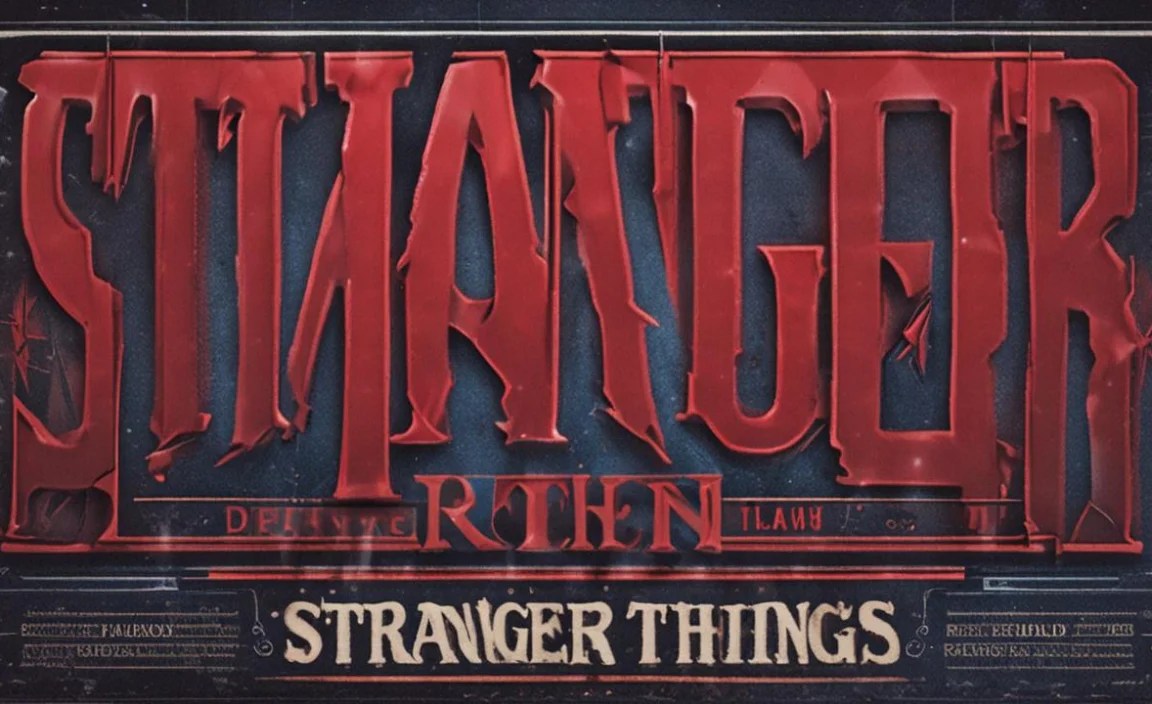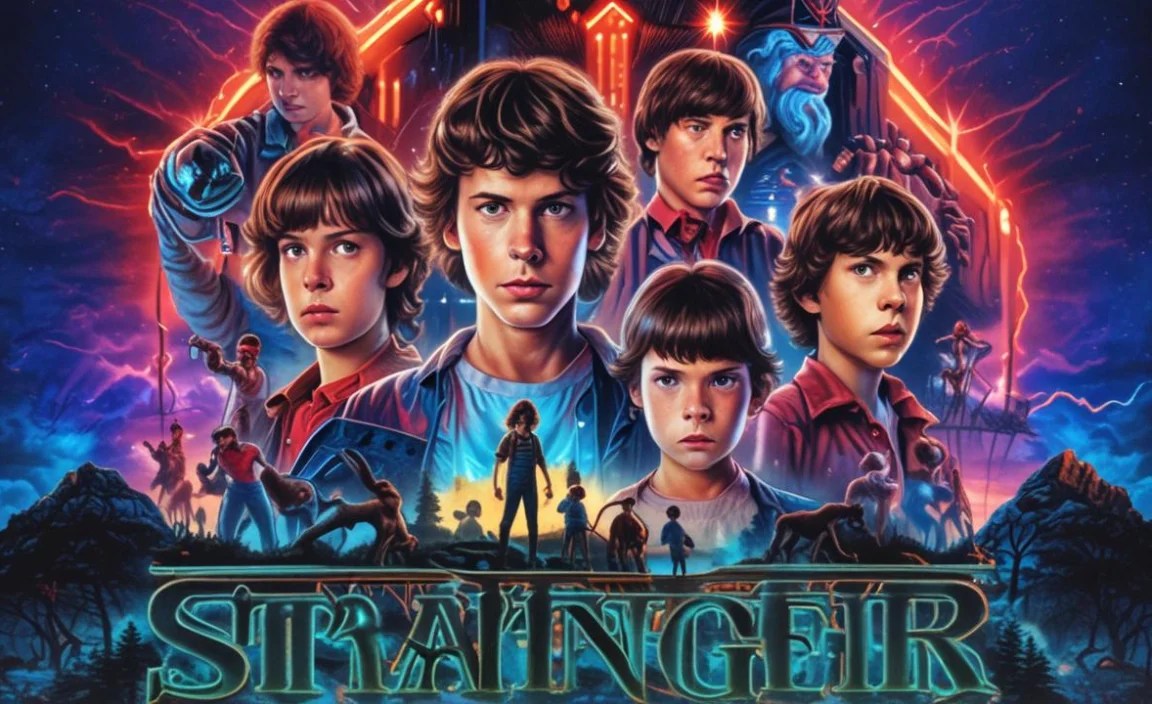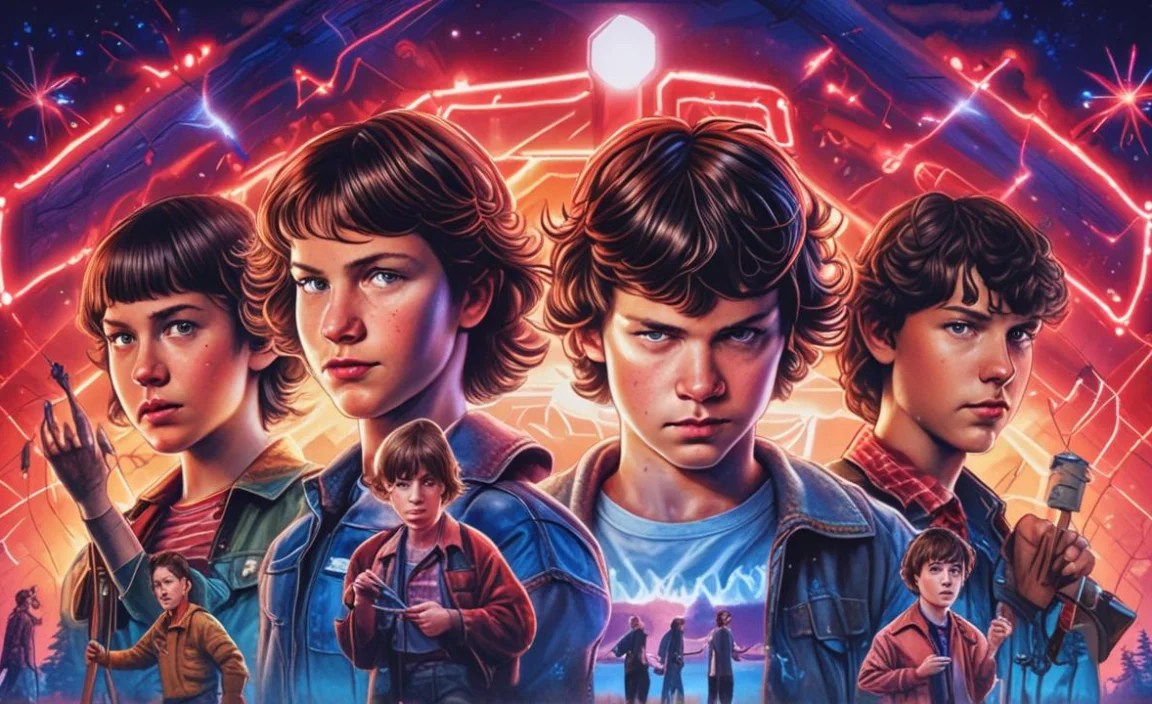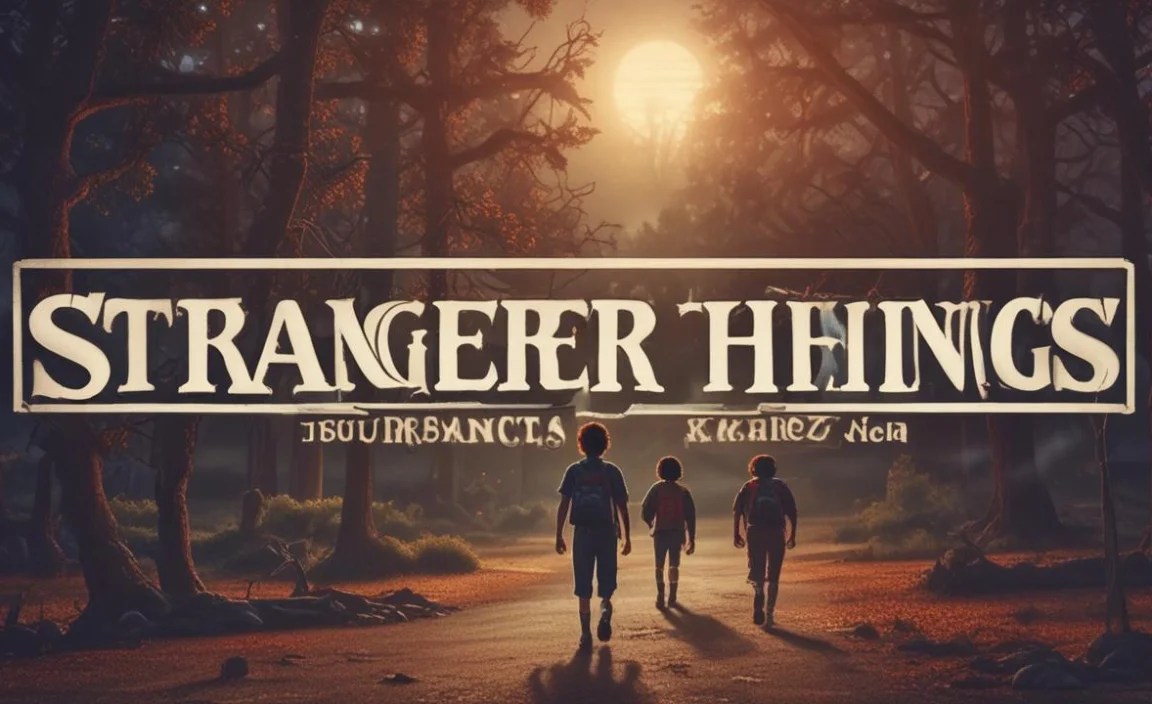
The Stranger Things font, used for the iconic title sequence of the hit series Stranger Things, is based on the ITC Benguiat Bold typeface, designed by Ed Benguiat in 1977.
This font is widely recognized for its retro, dramatic appearance, capturing the essence of the show’s 1980s setting and supernatural themes. The Stranger Things logo’s typography has become synonymous with the show’s identity, contributing to its nostalgic appeal and popularity.
Stranger Things Font Information
| Name | Stranger Things Font |
| Style | Bold |
| Designer | Ed Benguiat |
| Type | Serif, Display |
Stranger Things Font Family Includes
- Benguiat Bold
- Stranger Things Outlined
Where Stranger Things Font Is In Use
- Stranger Things Logo: Featured in the show’s title sequence.
- Promotional Material: Used in movie posters, merchandise, and advertisements.
- Book Covers: Often used for designs with a retro or horror theme.
- Movie Posters: Recognizable in other horror and science fiction posters, such as The Shining and Krazy Knacks.
- Typography: Featured in type designs that require a vintage or 1980s-inspired aesthetic.
- Pop Culture: Iconic in pop culture, referenced by fans of the show.
- Science Fiction and Horror: Frequently seen in typography related to sci-fi and horror genres.
- Bookman Swash: A serif typeface with a vintage feel, similar in ornamental style.
- ITC Avant Garde: A geometric sans-serif font that pairs well with retro fonts like ITC Benguiat.
- Krazy Knacks: A playful font with a slightly quirky look, evoking the fun and supernatural elements of Stranger Things.
- New York Times: Although more modern, it shares a similarly recognizable serif style.
- IBM Plex Sans: A clean, modern font that contrasts well with the ornamental style of ITC Benguiat, perfect for pairing in web and graphic designs.
- Roboto: A clean sans-serif that offers legibility while complementing the unique character of ITC Benguiat in headings or titles.
The Stranger Things font has become an iconic part of pop culture, capturing the nostalgia of the 1980s while also conveying the eerie and supernatural atmosphere of the show.
Designed by Ed Benguiat, it’s a perfect fit for the series’ theme, and its influence is seen across movie posters, promotional materials, and typography in the sci-fi and horror genres. Whether you’re looking to replicate the look for a personal project or exploring its use in your design work, the Stranger Things font remains a standout option.
1.What Font Is Used In The Stranger Things Logo?
The font used in the Stranger Things logo is ITC Benguiat Bold.
4.What Are Some Similar Fonts To The Stranger Things Font?
Similar fonts include ITC Avant Garde, Bookman Swash, and Krazy Knacks.